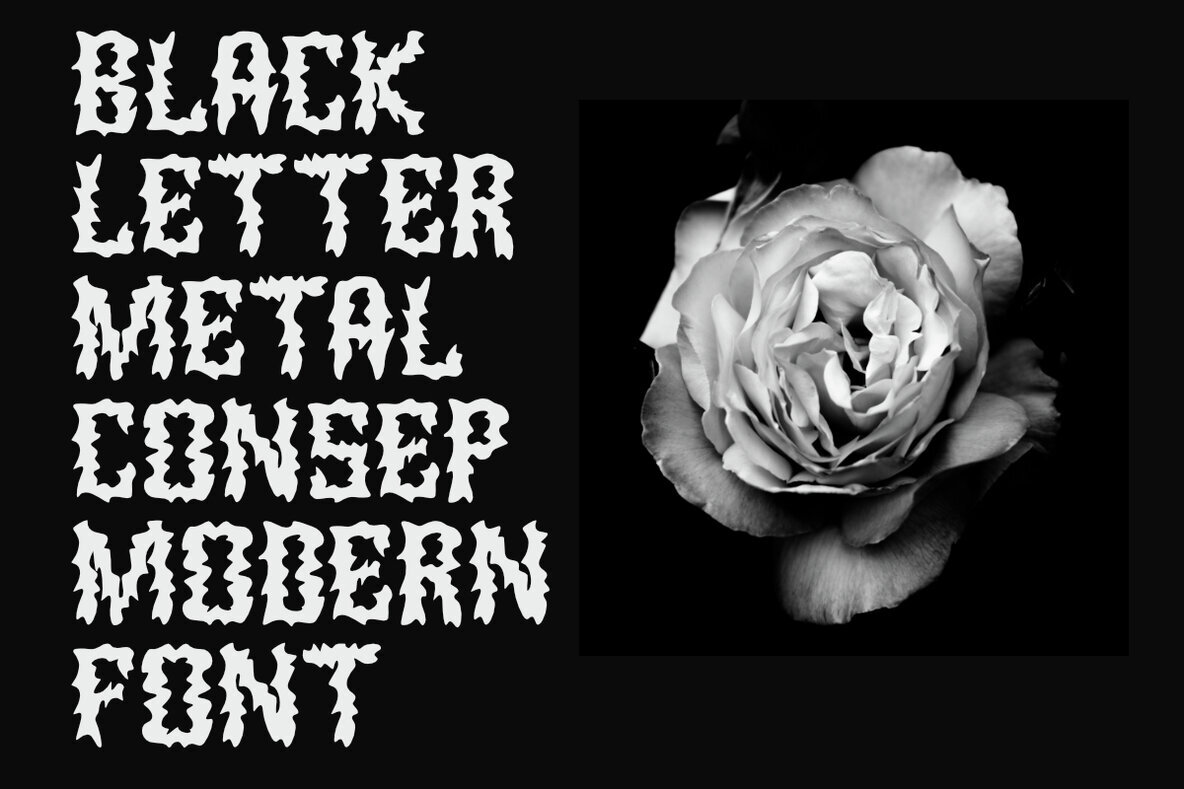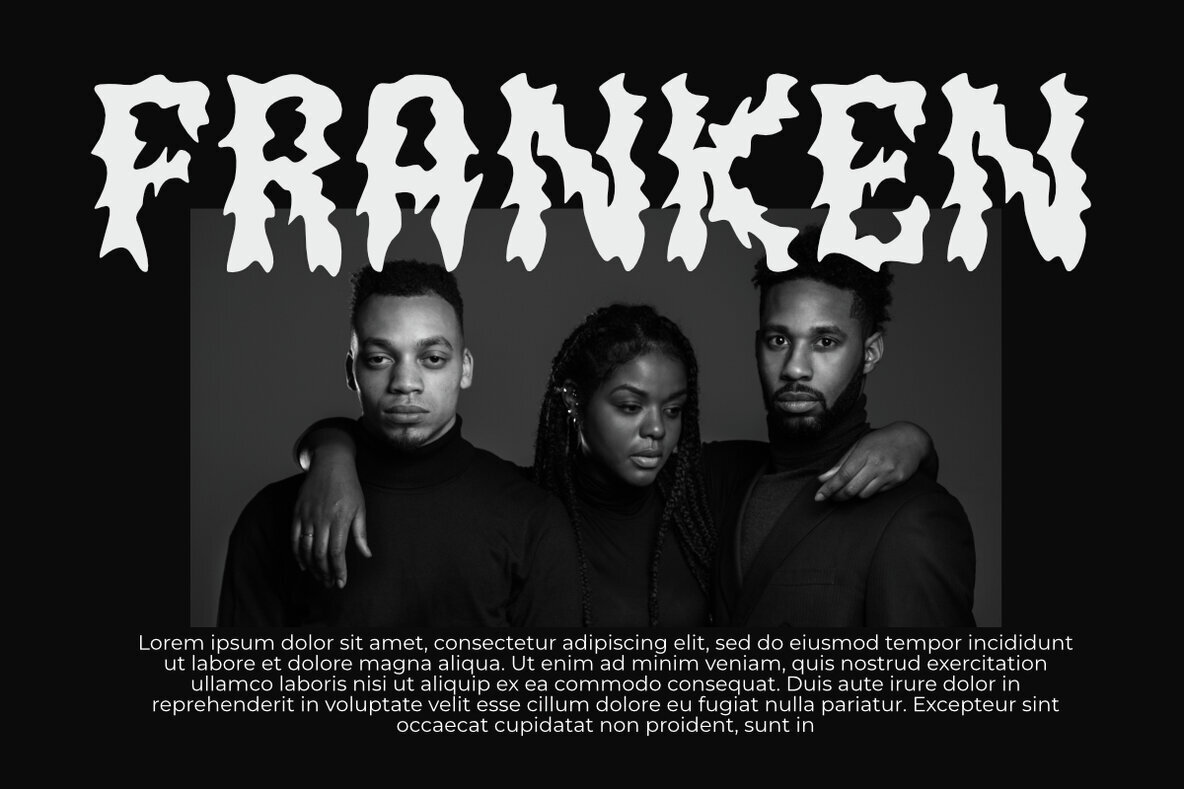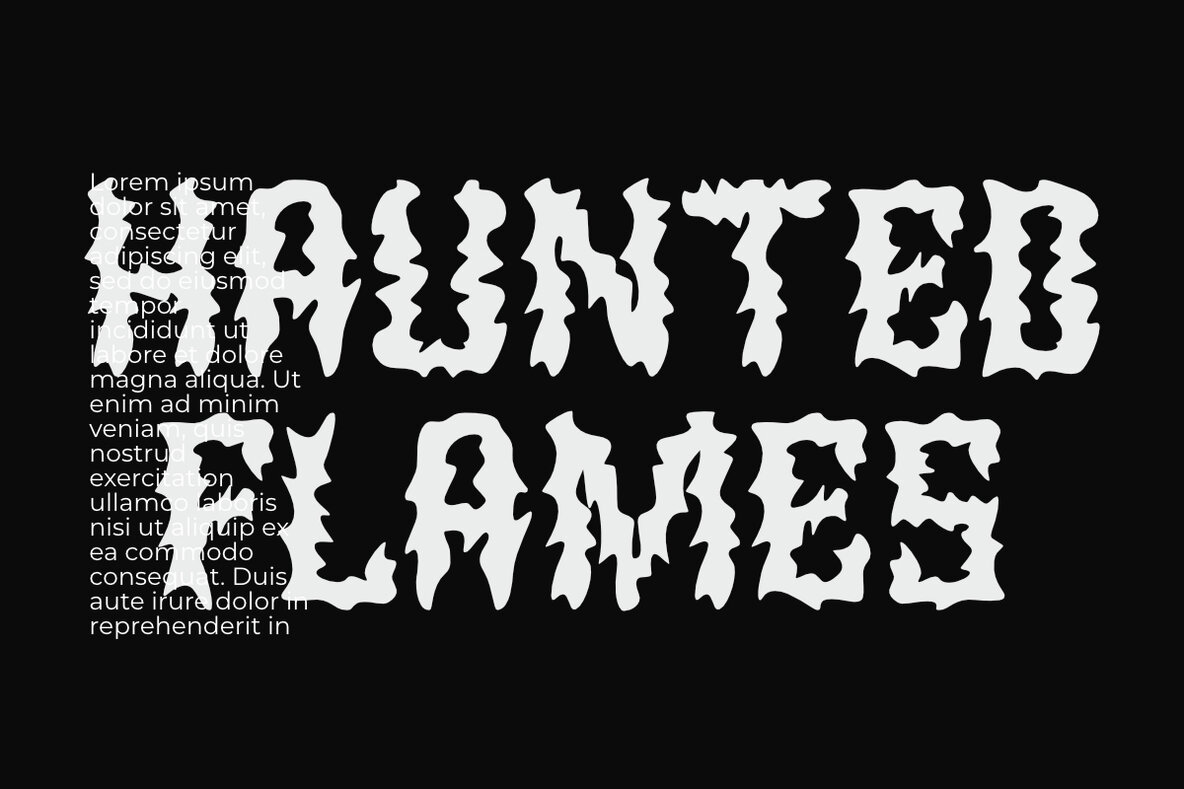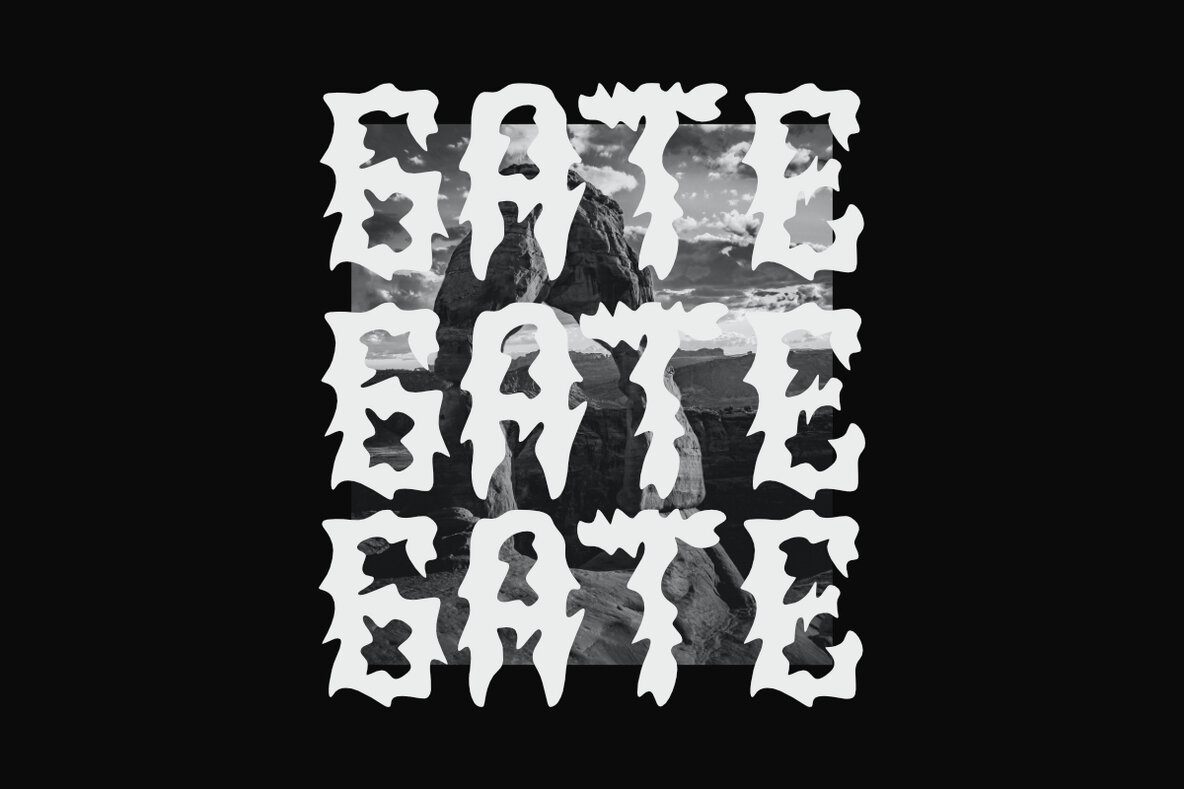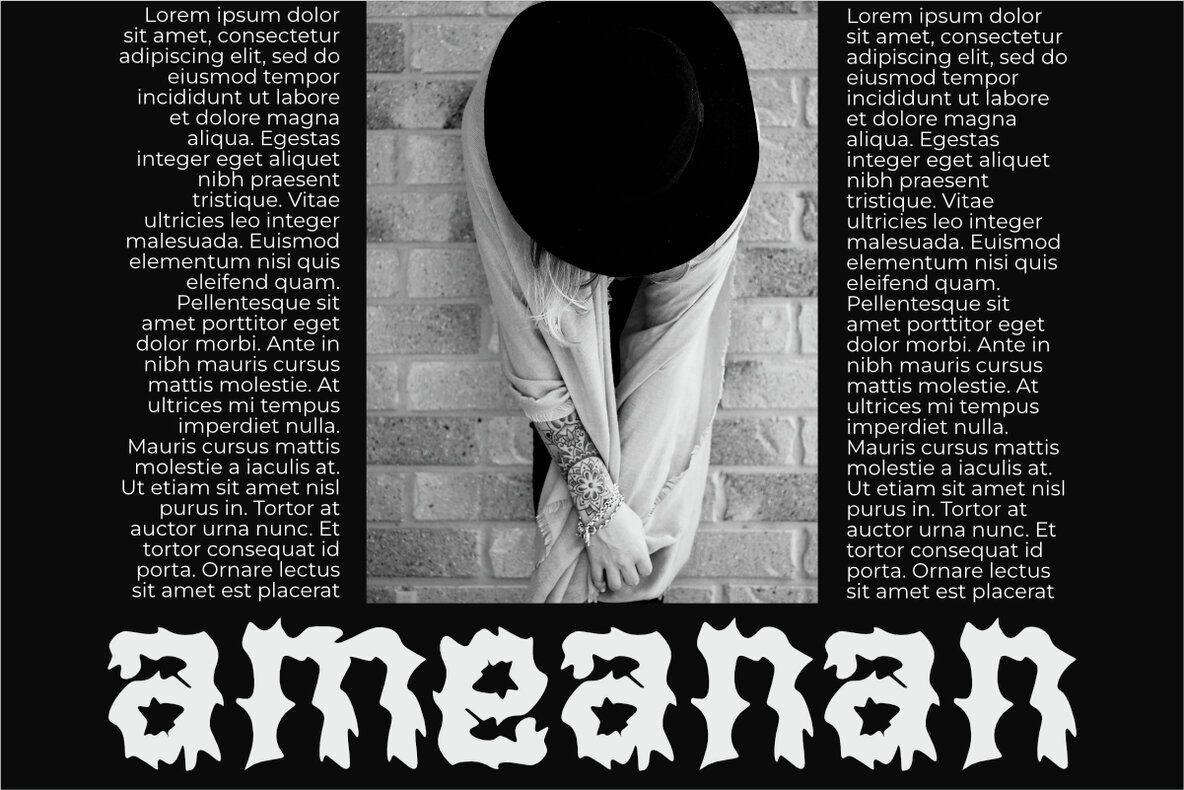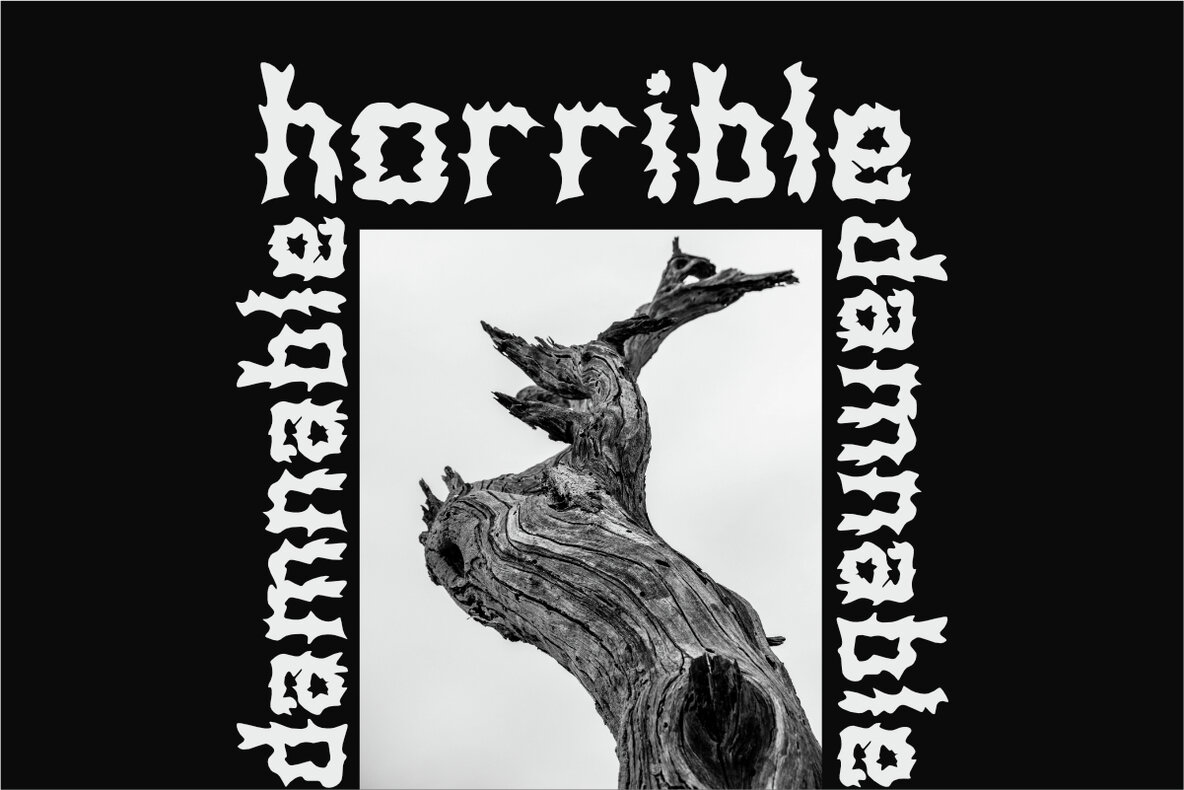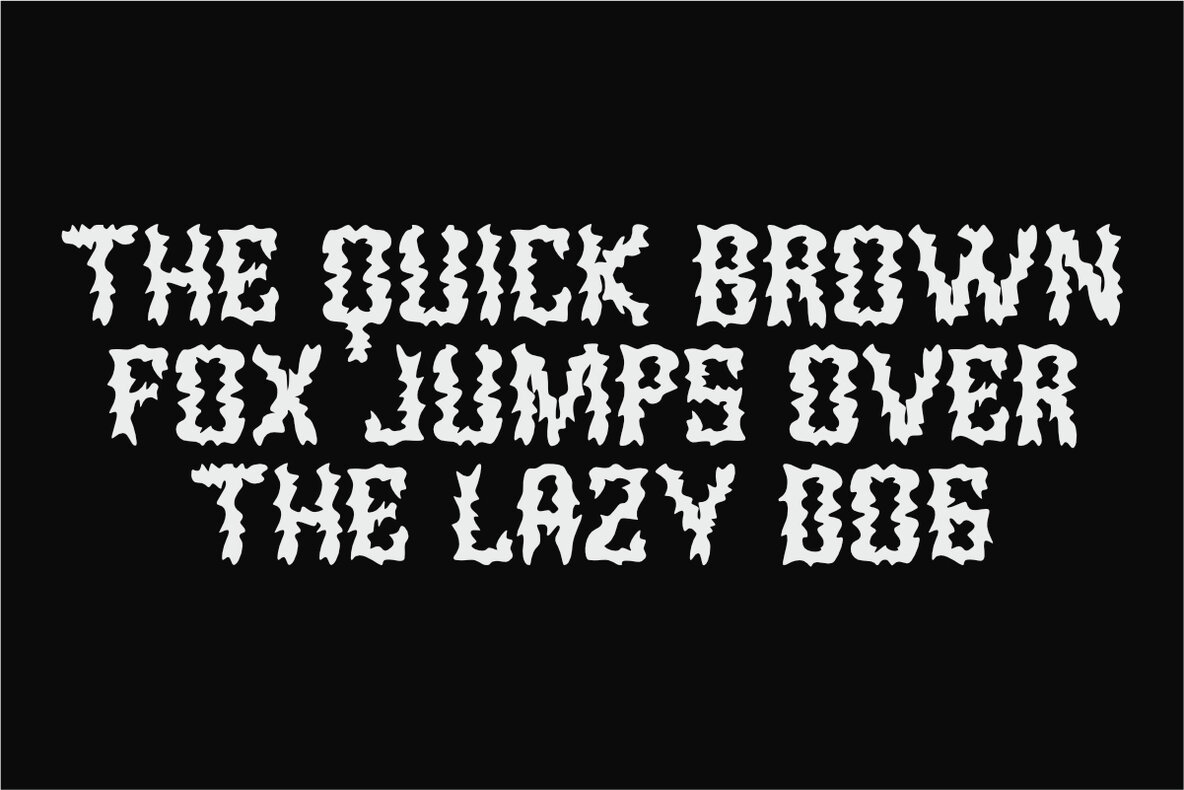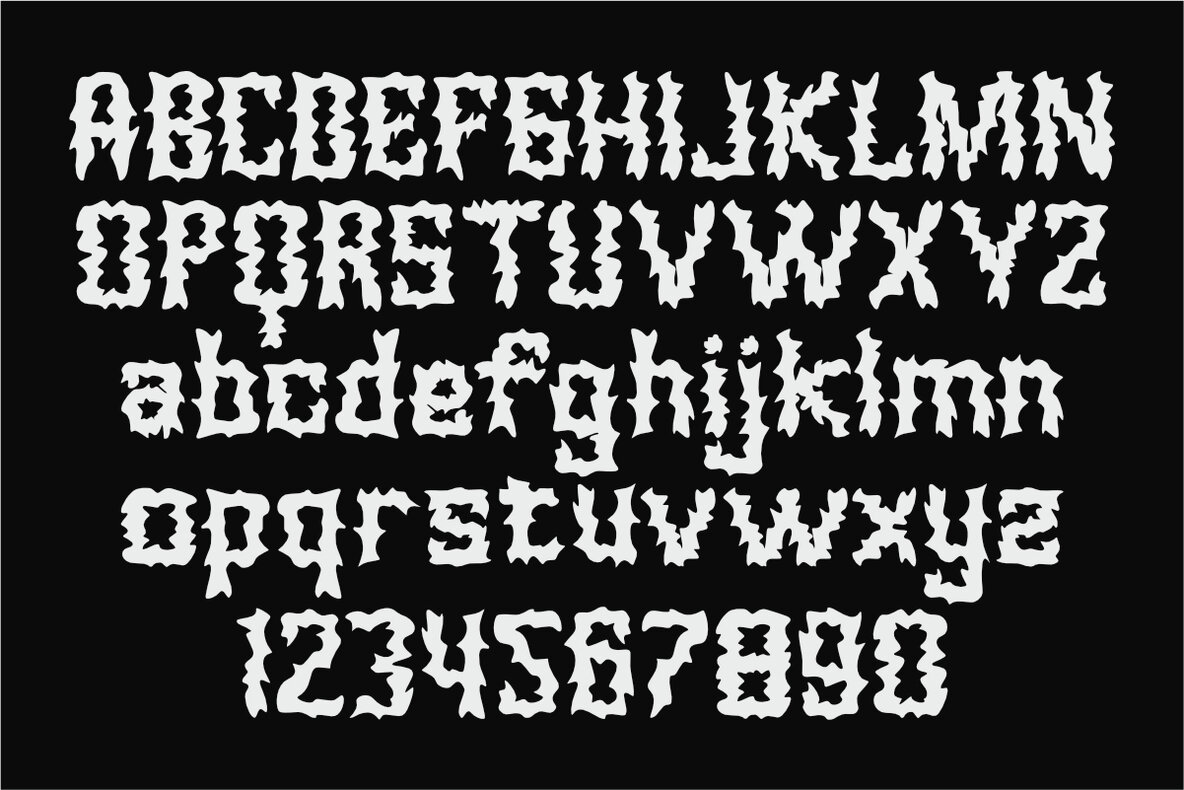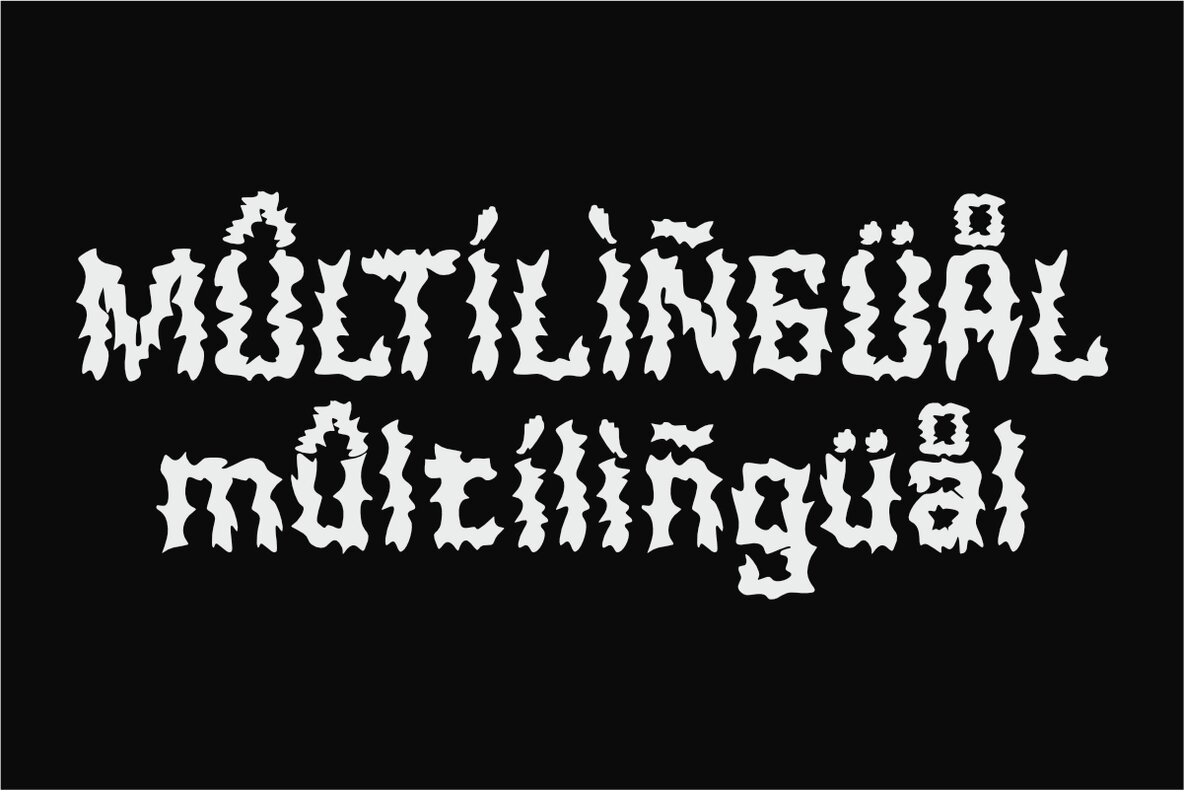
Bunfire Font
Bunfire Regular
Bunfire is a font that merges strength, mystery, and a subtle touch of femininity. The characters exhibit a jagged, intense appearance, giving off a scorched, flame-like effect. Each letter boasts a unique and eerie design, creating a dramatic and captivating look while maintaining a hint of feminine charm. This distinctive blend of elements makes Bunfire perfect for creative projects ranging from horror posters and book covers to branding that requires a dark, mystical, yet elegant vibe.
With its bold and characterful appearance, Bunfire strikes a balance between tension and grace, ensuring a memorable impression in any design. It includes both uppercase and lowercase characters, numerals, punctuation, and accented characters. Multiple language support broadens its versatility for various projects, making it a highly functional and unforgettable choice.